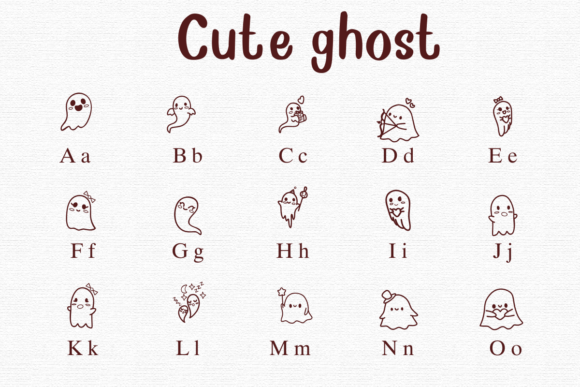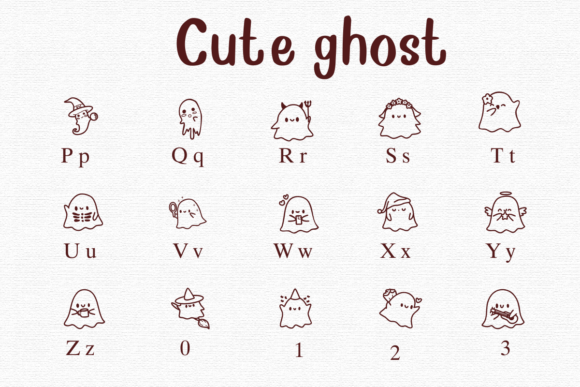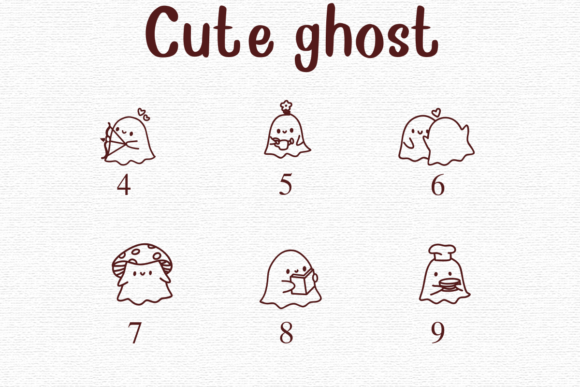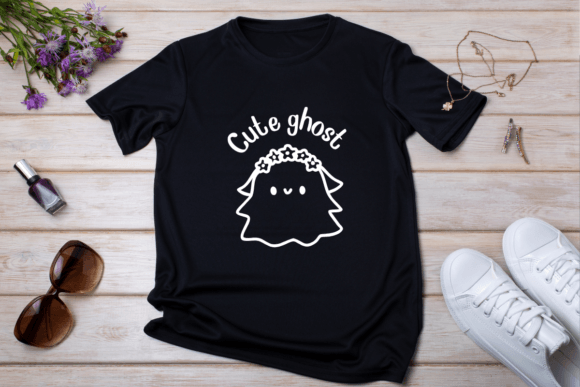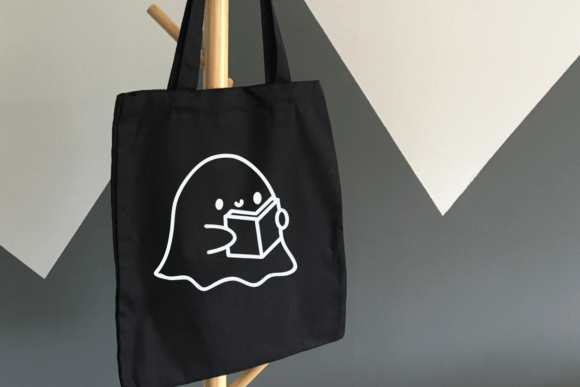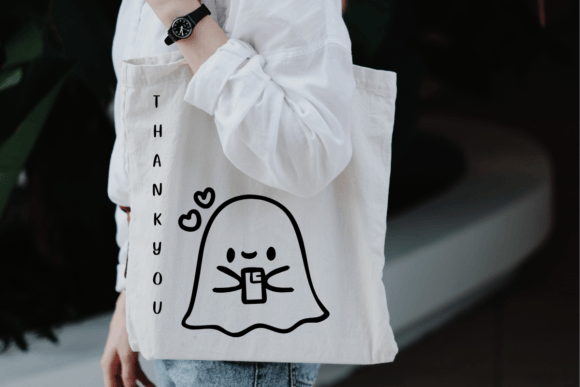
Cute Ghost Font: Add a Touch of Spooky Charm to Your Designs
Are you looking for a unique and playful font to add a touch of Halloween charm to your designs? Look no further than the Cute Ghost Font! This fun font replaces each letter with a cute little ghost character, making it perfect for designers and crafters who want to add a spooky touch to their work.
What is Cute Ghost Font?
The Cute Ghost Font is a one-of-a-kind font that features adorable ghost characters in place of traditional letters. It’s a playful and spooky font that’s sure to delight both kids and adults alike. Whether you’re designing Halloween-themed decorations, crafting spooky party invitations, or creating eerie-themed social media graphics, this font is sure to add a touch of whimsy and fun to your work.
Features of Cute Ghost Font
- Unique and Playful Design: Each letter is replaced by a cute little ghost character, making it perfect for adding a touch of Halloween charm to your designs.
- Versatile: This font is perfect for a variety of design projects, including Halloween-themed decorations, party invitations, social media graphics, and more.
- Scalable: The Cute Ghost Font is scalable, making it perfect for use in a variety of design projects, from small icons to large banners.
Uses for Cute Ghost Font
The Cute Ghost Font is perfect for a variety of design projects, including:
- Halloween-themed Decorations: Use the Cute Ghost Font to create spooky and fun Halloween-themed decorations, such as garlands, banners, and signs.
- Party Invitations: Add a touch of whimsy and fun to your Halloween party invitations with the Cute Ghost Font.
- Social Media Graphics: Use the Cute Ghost Font to create spooky and fun social media graphics, such as Halloween-themed Facebook posts and Instagram stories.
- Crafting Projects: The Cute Ghost Font is perfect for a variety of crafting projects, such as making Halloween-themed cards, gift tags, and more.
Tips for Using Cute Ghost Font
Here are a few tips for using the Cute Ghost Font in your designs:
- Experiment with Different Sizes: The Cute Ghost Font is scalable, so experiment with different sizes to find the perfect fit for your design.
- Pair with Other Fonts: Pair the Cute Ghost Font with other fonts to create a unique and interesting design.
- Add Color and Texture: Add color and texture to your design to make it more visually interesting.
The Cute Ghost Font is a fun and playful font that’s perfect for adding a touch of Halloween charm to your designs. With its unique and adorable ghost characters, this font is sure to delight both kids and adults alike. Whether you’re a designer or crafter, the Cute Ghost Font is a great addition to your font collection. So why not give it a try and see how you can use it to add a touch of spooky charm to your designs?